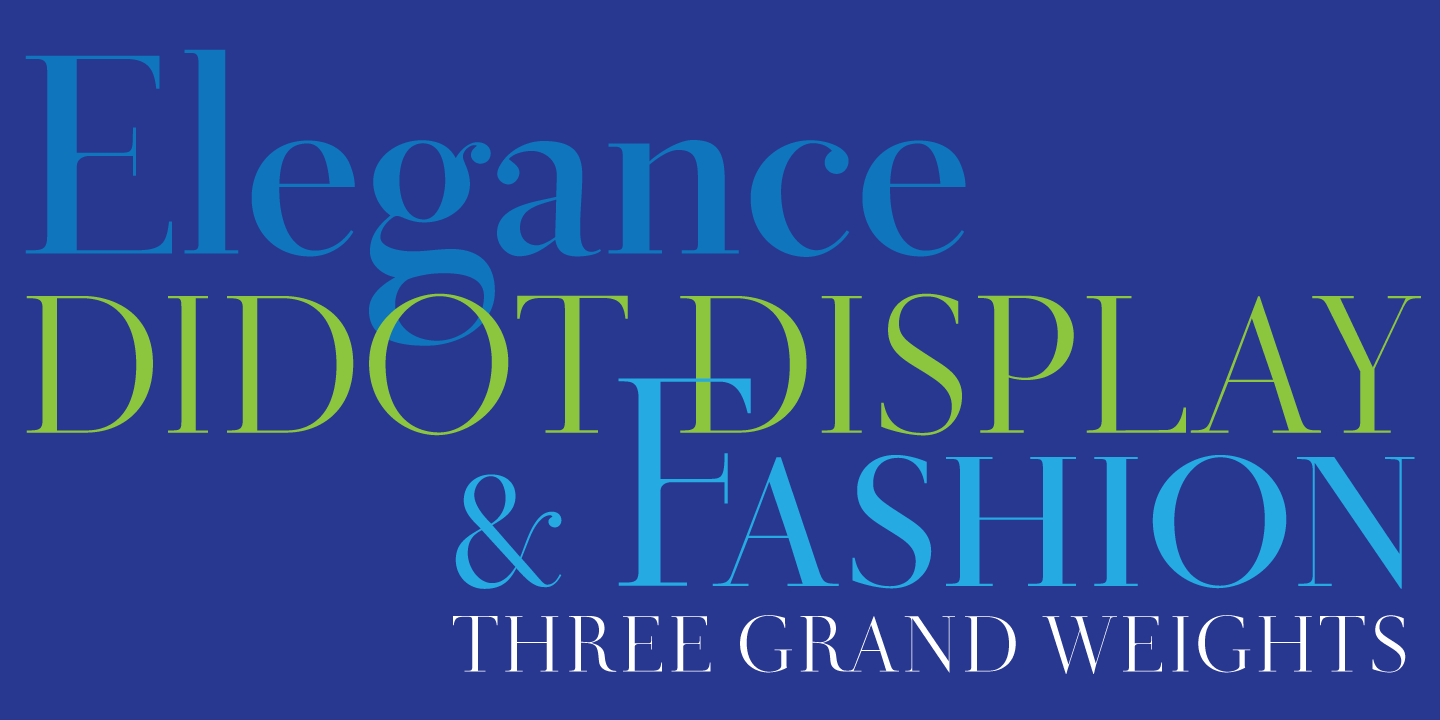
Didot Display Font Free Download is a refined serif typeface known for its high contrast strokes and elegant, classic style. Please note: you must purchase a license for commercial use — this font is available as a free download for personal and testing purposes only.
Ideal for luxury branding, fashion magazines, editorial headlines, invitations, and packaging, Didot Display Font Free Download adds sophistication and timeless beauty to your designs.
What makes this font exciting is its thin, crisp serifs paired with dramatic stroke contrast, creating a striking and stylish appearance that commands attention.
The Didot Display font family includes Regular, Italic, Bold, and Bold Italic styles, offering versatility for high-impact typography.
If you want to elevate your projects with elegance and a classic flair, Didot Display Font Free Download is a perfect choice. Download it today, explore its graceful design, and make your creative work stand out with prestige.